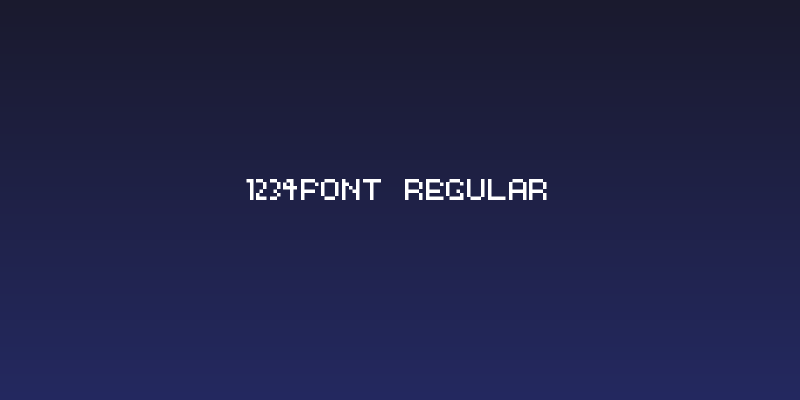
1234Font Regular Font
1234Font Regular Description
This font features a pixelated, blocky design reminiscent of early digital displays and retro video games. Each character is composed of square pixels, giving it a distinctly digital and geometric appearance. The uppercase and lowercase letters maintain a consistent height, contributing to a uniform look. Numbers and special characters follow the same pixelated style, ensuring a cohesive aesthetic throughout. The font's simplicity and clarity make it suitable for digital-themed projects, while its nostalgic feel can evoke a sense of vintage computing.
| Use Case | Logos, Headlines, Digital Art |
| Proposed Projects | Ideal for retro video game designs, digital art projects, tech-themed posters, and any creative work seeking a nostalgic digital look. |